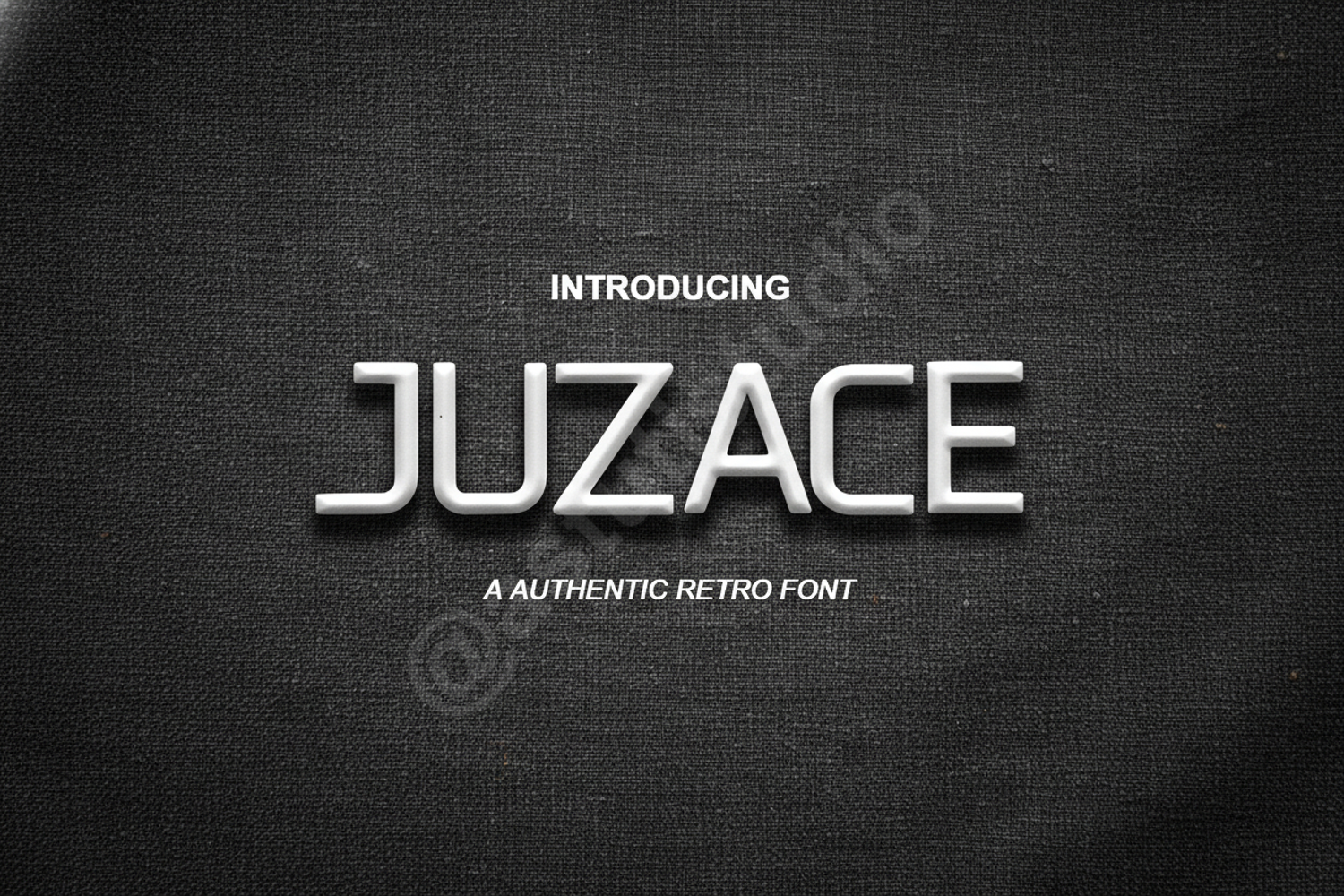
Juzace - Elegant Modern Luxury Serif
Juzace
Juzace is a premium display serif font that exudes sophistication and timeless elegance. Carefully crafted with balanced proportions and refined curves, this typeface is designed to elevate your creative projects to a professional standard. Whether you are working on a high-fashion brand or a minimalist editorial layout, Juzace provides the perfect blend of modern flair and classic structure.
- Multilingual support for global accessibility
- Standard ligatures and alternate characters
- Luxury Branding: Create memorable logos and identity systems for high-end brands.
- Wedding Stationery: Add a touch of class to invitations, save-the-dates, and menus.
- Editorial Design: Perfect for magazine headers, book covers, and stylish layouts.
- Social Media: Design eye-catching quotes and promotional graphics.
- Product Packaging: Enhance the visual appeal of premium cosmetics, jewelry, or apparel labels.